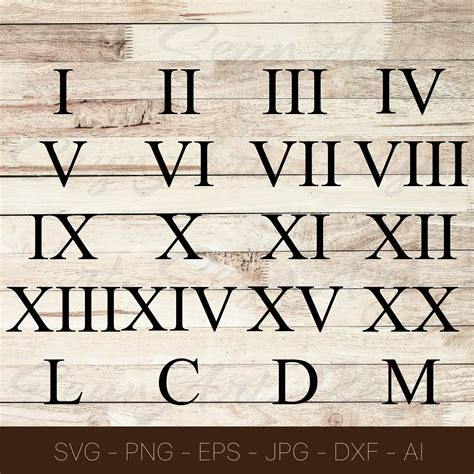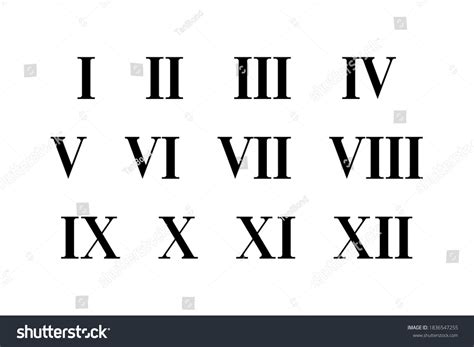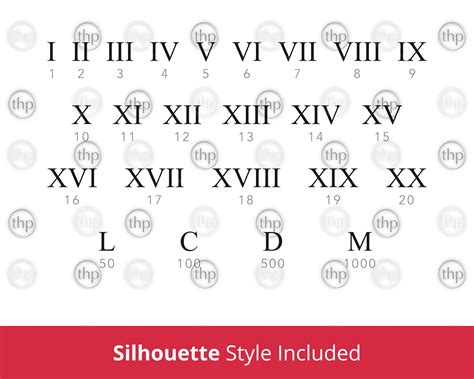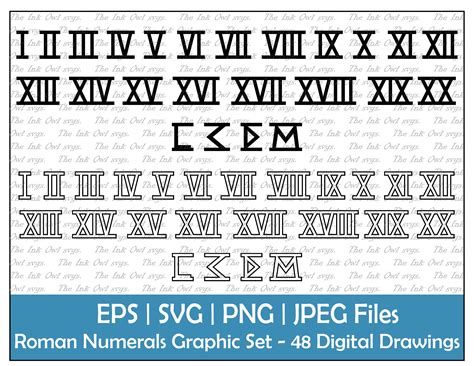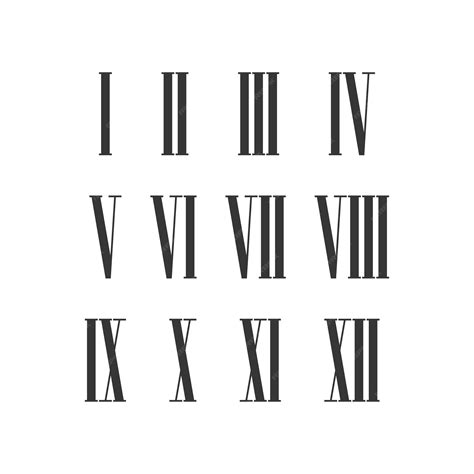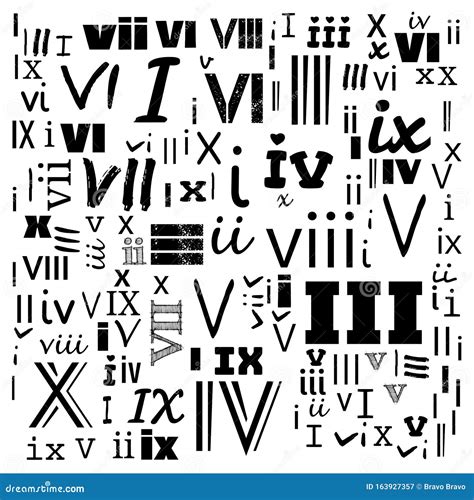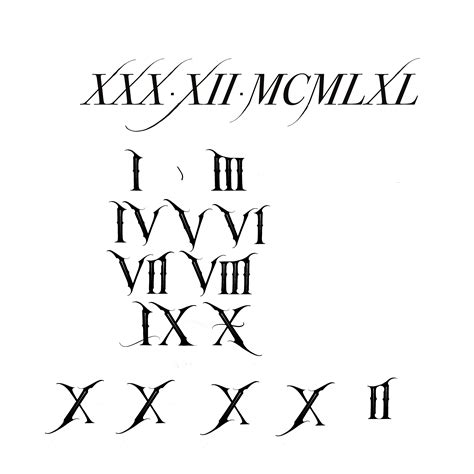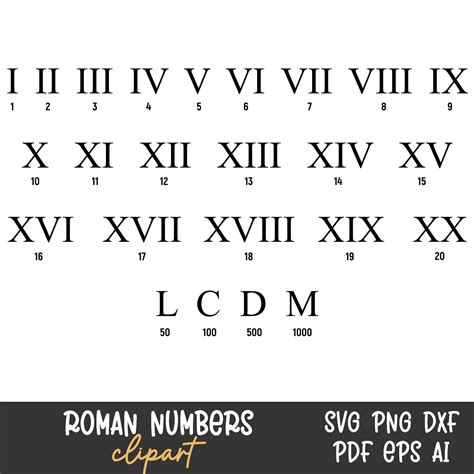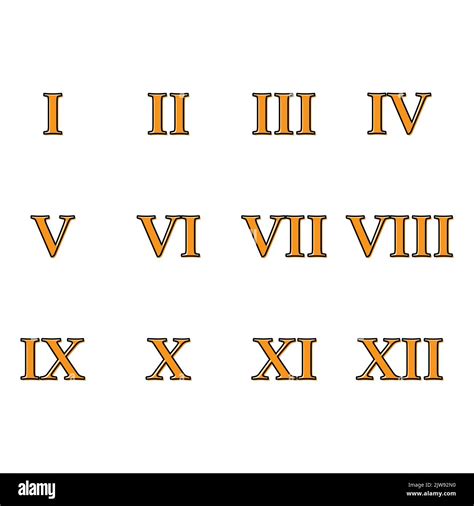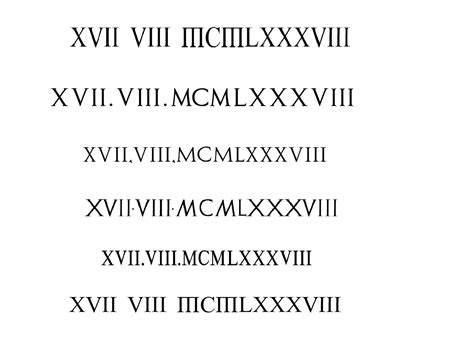
Roman numeral fonts have a timeless appeal that transcends eras, making them a popular choice for various design projects. These fonts, inspired by the ancient Roman numbering system, bring a sense of elegance and historical significance to any text they adorn. Whether you're designing a logo, creating a wedding invitation, or crafting a movie poster, Roman numeral fonts can add a touch of sophistication and intrigue.
Understanding Roman Numeral Fonts
Roman numeral fonts are characterized by their distinctive lettering, which often features serifs and a classical aesthetic. These fonts are not just about numbers; they can also include letters that mimic the style of ancient Roman inscriptions. The use of Roman numeral fonts can evoke a sense of tradition and authority, making them ideal for formal and prestigious contexts.
History and Evolution of Roman Numeral Fonts
The origins of Roman numeral fonts can be traced back to the Roman Empire, where numerals were used extensively in inscriptions, coins, and official documents. The Roman numeral system, which uses combinations of letters from the Latin alphabet, has been a staple of Western civilization for centuries. Over time, the style of Roman numerals has evolved, but the core design principles remain the same.
In the modern era, Roman numeral fonts have been adapted for digital use, making them accessible to designers and typographers worldwide. Today, these fonts are available in various styles and weights, allowing for versatility in design projects. Whether you need a bold, attention-grabbing font or a more subtle, elegant typeface, there is a Roman numeral font to suit your needs.
Popular Roman Numeral Fonts
There are numerous Roman numeral fonts available, each with its unique characteristics. Some of the most popular options include:
- Trajan: Inspired by the ancient Trajan's Column in Rome, this font is known for its elegant and timeless design. It is often used in movie posters and high-end branding.
- Centaur: This font is based on the typefaces used in the early 20th century and features a classic, serif design that is both readable and stylish.
- Garamond: While not exclusively a Roman numeral font, Garamond includes Roman numeral characters that are beautifully designed and highly readable.
- Bodoni: This font is known for its high contrast between thick and thin strokes, giving it a dramatic and elegant appearance. It is often used in luxury branding and high-end publications.
Applications of Roman Numeral Fonts
Roman numeral fonts are incredibly versatile and can be used in a wide range of applications. Some of the most common uses include:
- Logos and Branding: Roman numeral fonts can add a touch of sophistication and timelessness to logos and branding materials. They are often used by companies that want to convey a sense of tradition and authority.
- Wedding Invitations: For a classic and elegant look, Roman numeral fonts are a popular choice for wedding invitations. They can be used for dates, names, and other important details.
- Movie Posters: Many movie posters feature Roman numeral fonts to create a sense of grandeur and historical significance. This is particularly common in period films and epic dramas.
- Book Covers: Roman numeral fonts can add a touch of elegance to book covers, especially for historical fiction, non-fiction, and academic texts.
- Event Invitations: For formal events such as galas, banquets, and corporate functions, Roman numeral fonts can enhance the overall aesthetic and create a sense of importance.
Designing with Roman Numeral Fonts
When designing with Roman numeral fonts, there are several key considerations to keep in mind. These fonts can be highly effective when used correctly, but they also require careful attention to detail to ensure readability and aesthetic appeal.
Firstly, it's important to choose the right font for your project. Consider the overall style and tone of your design, and select a Roman numeral font that complements these elements. For example, if you're designing a modern, minimalist logo, a more subtle and understated font might be more appropriate. On the other hand, if you're creating a luxurious wedding invitation, a more ornate and elegant font could be the better choice.
Secondly, pay attention to the size and spacing of your text. Roman numeral fonts can be quite intricate, so it's important to ensure that the text is large enough to be easily readable. Additionally, consider the spacing between letters and lines to avoid clutter and maintain a clean, polished look.
Thirdly, think about the color and background of your design. Roman numeral fonts often look best against a neutral or contrasting background. Experiment with different color combinations to find the perfect balance that highlights the font's unique characteristics.
Finally, consider the context in which your design will be used. Roman numeral fonts are highly versatile, but they may not be suitable for all types of projects. For example, they might not be the best choice for a modern, tech-savvy website or a casual, informal event invitation. Always consider the audience and the message you want to convey when choosing a font.
💡 Note: When using Roman numeral fonts in movie poster design, it's important to consider the legibility and readability of your design. Ensure that your text is large enough and has sufficient contrast against the background to be easily readable.
Roman Numeral Fonts in Wedding Invitations
Roman numeral fonts are a popular